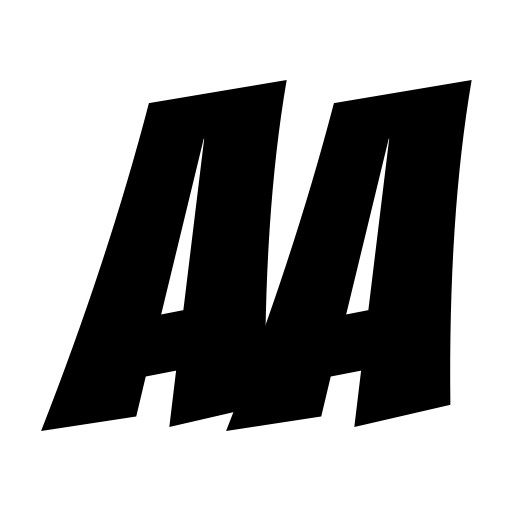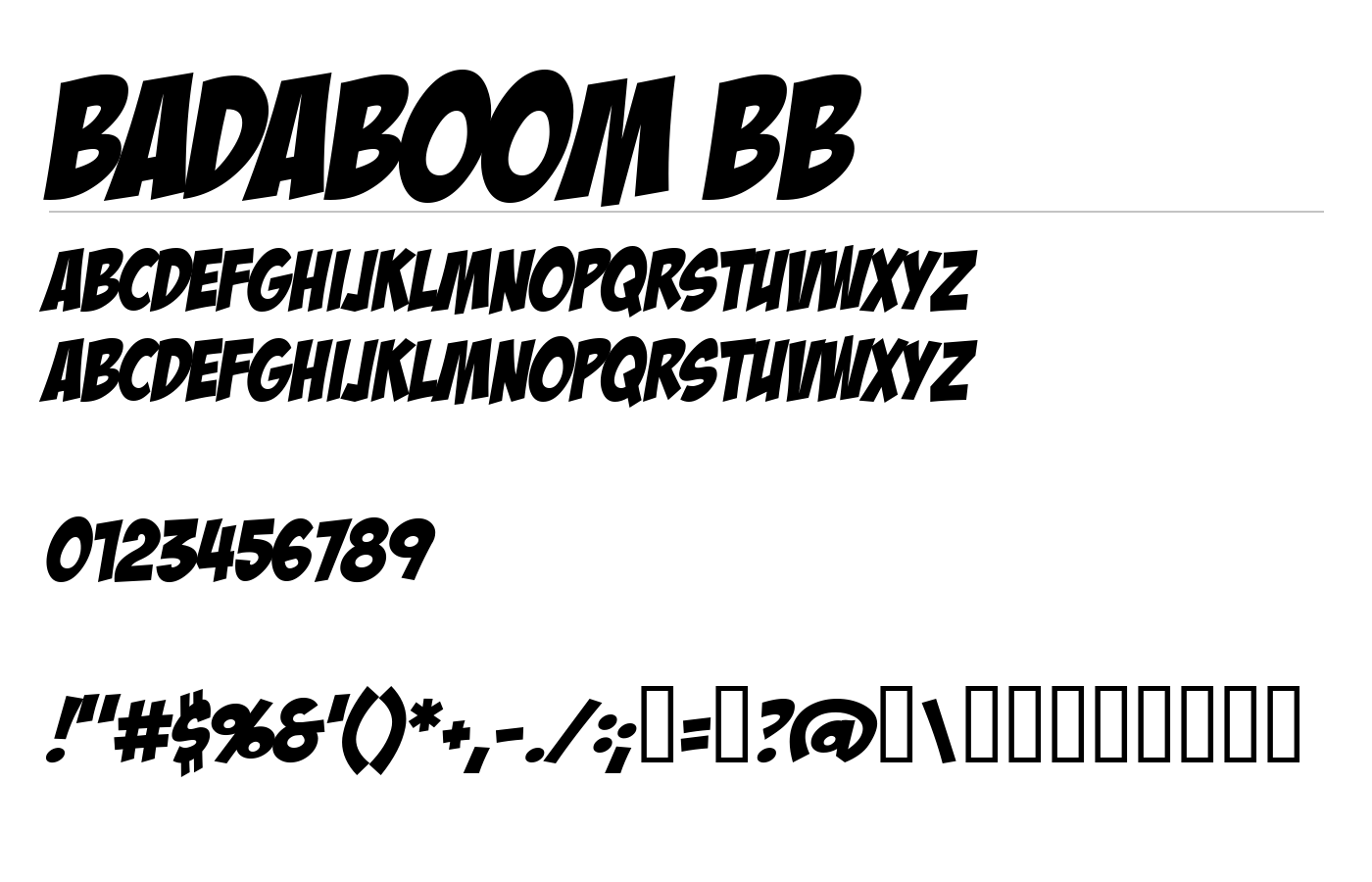
BadaBoom BB is a bold, playful sans serif font with a comic book style, featuring thick, heavy strokes and a slightly condensed width with italicized slant that adds dynamic energy. Its uppercase letters are chunky and expressive, designed to grab attention with a fun, informal vibe ideal for eye-catching headlines, logos, or posters. This font works best where a vibrant, energetic personality is needed, such as in entertainment, sports, or youth-focused branding.
BadaBoom BB Font
About BadaBoom BB Font